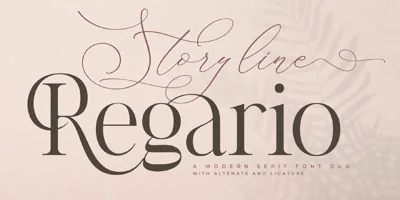
Storyline Regario Script
Storyline Regario Script Font
The Storyline Regario Script Font excels in various design applications including luxury storytelling branding, elegant publishing projects, sophisticated memoir covers, upscale literary magazines, royal wedding invitations, prestigious narrative marketing, refined book typography, aristocratic event materials, distinguished editorial design, and premium narrative communications that demand regal elegance and storytelling sophistication.
What makes the Storyline Regario Script Font exciting is its masterful fusion of narrative flow with royal elegance through letterforms that suggest the graceful penmanship of aristocratic storytellers and court scribes. This typeface captures the essence of regal storytelling traditions through flowing script characters that embody both the fluid motion of compelling narratives and the dignified refinement of royal calligraphy. The font's storytelling personality makes it perfect for luxury brands and publishing houses seeking to communicate narrative excellence, cultural sophistication, and the timeless appeal of beautifully crafted stories through typography that literally flows like an engaging tale told with aristocratic grace.
The Storyline Regario Script Font family typically includes elegant weight variations with enhanced narrative flow, featuring decorative swashes, royal flourishes, and sophisticated ligatures that enhance the storytelling aesthetic. These family options often include ornamental capitals, classical connecting strokes, and regal decorative elements that provide designers with comprehensive tools for creating authentic narrative typography that honors both literary excellence and aristocratic penmanship traditions.
Publishing professionals and luxury narrative brands consistently choose Storyline Regario Script Font for projects requiring typography that elevates storytelling to royal status. This typeface delivers exceptional performance in literary marketing, luxury publishing, and narrative branding where establishing cultural refinement and demonstrating appreciation for storytelling craftsmanship is essential for sophisticated audience engagement. The font's regal character makes it particularly effective for commemorative and ceremonial storytelling applications. Download Storyline Regario Script Font today to access this distinguished typeface that transforms narrative communications with its royal elegance and storytelling sophistication, creating compelling literary experiences that honor the finest traditions of aristocratic penmanship while celebrating the timeless power of beautifully told stories.